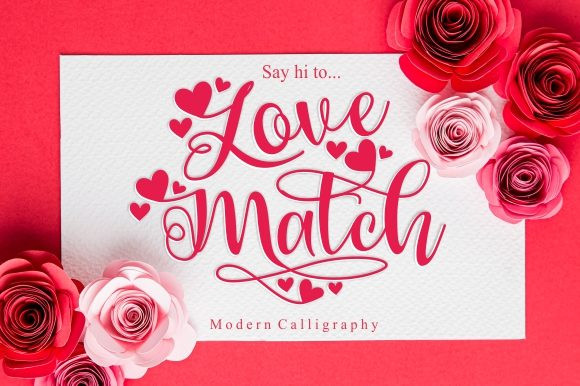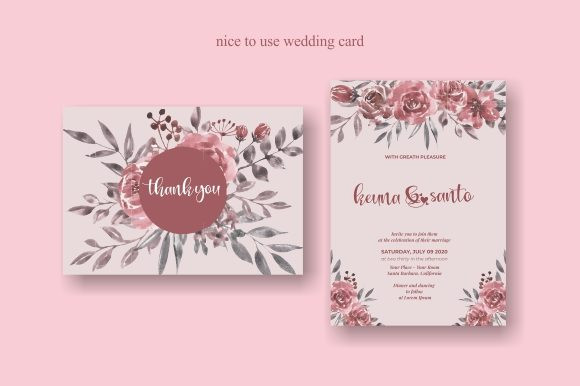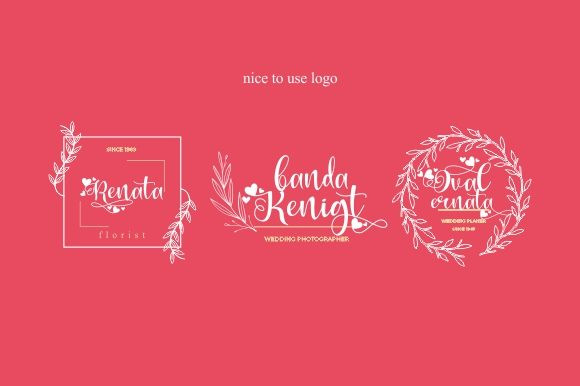
Love Match Font
Love Match is a romantic handwritten font, featuring lovely hearts as ornaments. It is defined by smooth curves and is perfect for fashion branding or editorial designs. Add it confidently to your projects, and you won’t be disappointed.